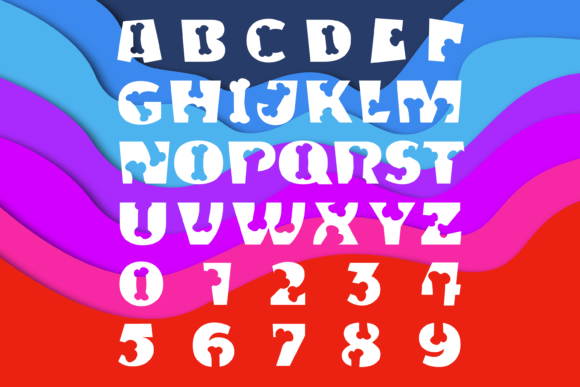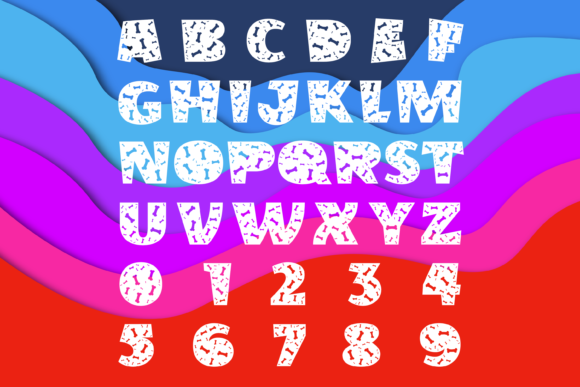
Introduction to Skel Bone Duo Font
Skel Bone Duo is an incredibly cool and quirky decorative font.
Whether you use it for cartoon-related designs, childrenโs games, or just any creation that requires a lovely touch, this font will be an amazing choice .
Key Features of Skel Bone Duo Font